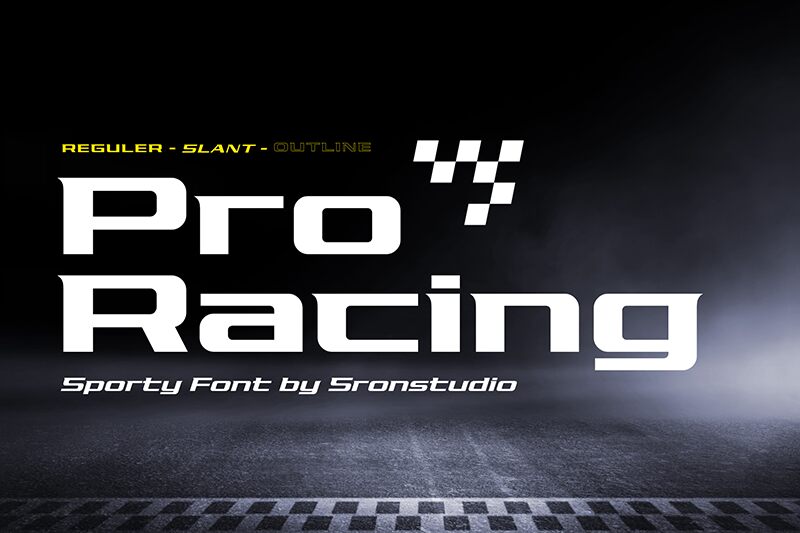
Pro Racing font family by Sronstudio is a free font family with a distinctly technological feel suitable for fast-paced designs. It consists of four font styles inspired by all things fast and dynamic - cars, races, athletes, and more. The family inherits true simplicity reminiscent of street signage, one that gently nods towards the energy in racing and adrenaline sports. The designer keeps the craft at its highest level and provides viewers with sharpness in letters on all counts.
Use Pro Racing for website designs, digital platforms, and mobile apps. It is a great choice for tech platforms and businesses and can serve well in car and vehicle-related projects. Pro Racing can be your additional visual asset for gaming projects, movie posters, race event signage, and many more branding projects.